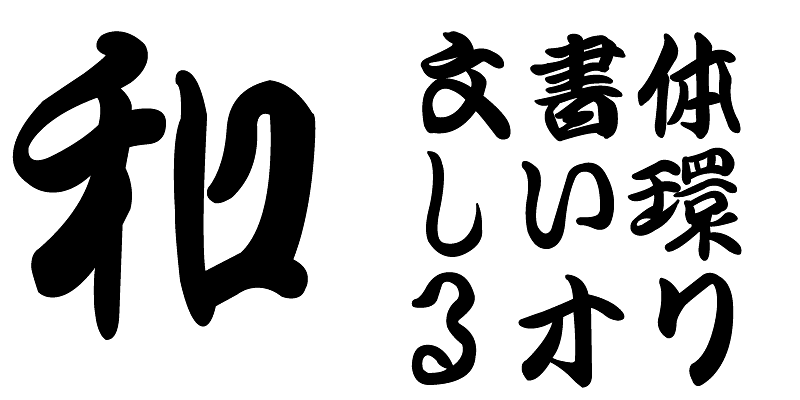
AB Togetsukanteiryu Font Free Download is a beautifully stylized Japanese calligraphy typeface that captures the essence of traditional brush writing with refined elegance. With dynamic strokes, sweeping curves, and expressive kanji and kana forms, this font is ideal for cultural publications, signage, formal invitations, product packaging, and artistic projects that celebrate Japanese heritage and aesthetics.
The brush-style texture and movement in AB Togetsukanteiryu Font evoke classical ink brushwork, making it perfect for designs that aim to convey sophistication, tradition, and authenticity. It offers both visual impact and cultural richness in both print and digital formats.